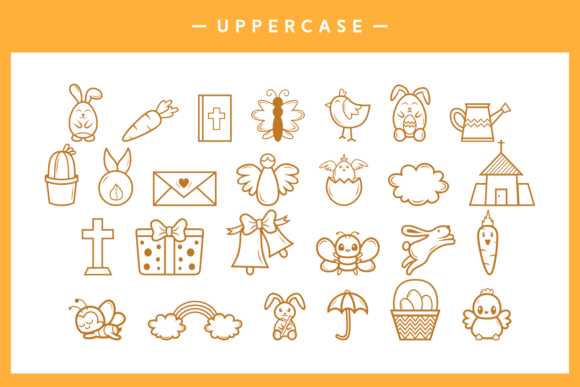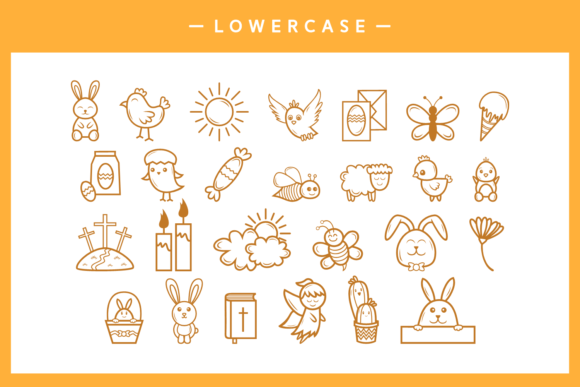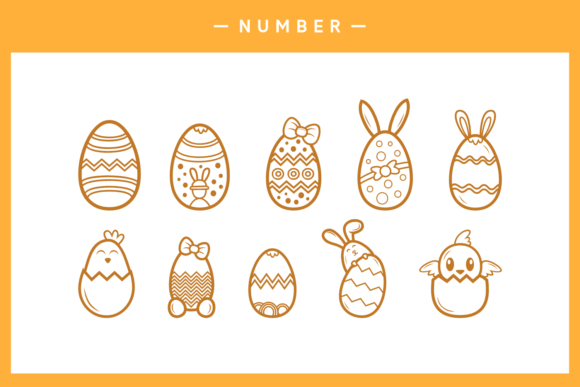
Easter Dreams Font: The Ultimate Dingbats Font for Easter Designs
Are you looking for a font that can add a touch of Easter magic to your designs? Look no further than Easter Dreams Font! This dingbats font is packed with a wide range of cute and tiny Easter elements that are perfect for creating decorative accents, patterns, and more. In this article, we’ll take a closer look at Easter Dreams Font and explore its features, benefits, and uses.
What is Easter Dreams Font?
Easter Dreams Font is a unique dingbats font that features a vast collection of Easter-themed elements. From adorable bunnies and eggs to beautiful flowers and baskets, this font has everything you need to create delightful Easter designs. The font is designed to be versatile and can be used for a wide range of projects, including greeting cards, invitations, social media graphics, and more.
Features of Easter Dreams Font
Easter Dreams Font comes with a wide range of features that make it the perfect choice for designers and crafters. Some of its key features include:
• Wide range of Easter elements: The font features a vast collection of Easter-themed elements, including bunnies, eggs, flowers, baskets, and more.
• Cute and tiny designs: Each element in the font is designed to be small and cute, making them perfect for creating decorative accents and patterns.
• Scalable: The font is scalable, which means you can use it for a wide range of projects, from small icons to large posters.
Uses of Easter Dreams Font
Easter Dreams Font is a versatile font that can be used for a wide range of projects. Some of the top uses for the font include:
• Greeting cards: Use the font to create adorable Easter greeting cards for friends and family.
• Invitations: Create custom Easter invitations that feature cute and tiny Easter elements.
• Social media graphics: Use the font to create eye-catching Easter social media graphics that will help you stand out from the crowd.
• Patterns and textures: Use the font to create beautiful Easter patterns and textures that can be used in a variety of projects.
Font Name Easter Dreams Font
Author Dito (7NTypes)
Easter Dreams Font is a unique and versatile dingbats font that is perfect for creating adorable Easter designs. With its wide range of cute and tiny Easter elements, this font is sure to inspire your creativity and help you create delightful designs. Whether you’re a designer or crafter, Easter Dreams Font is a must-have font for your Easter projects.